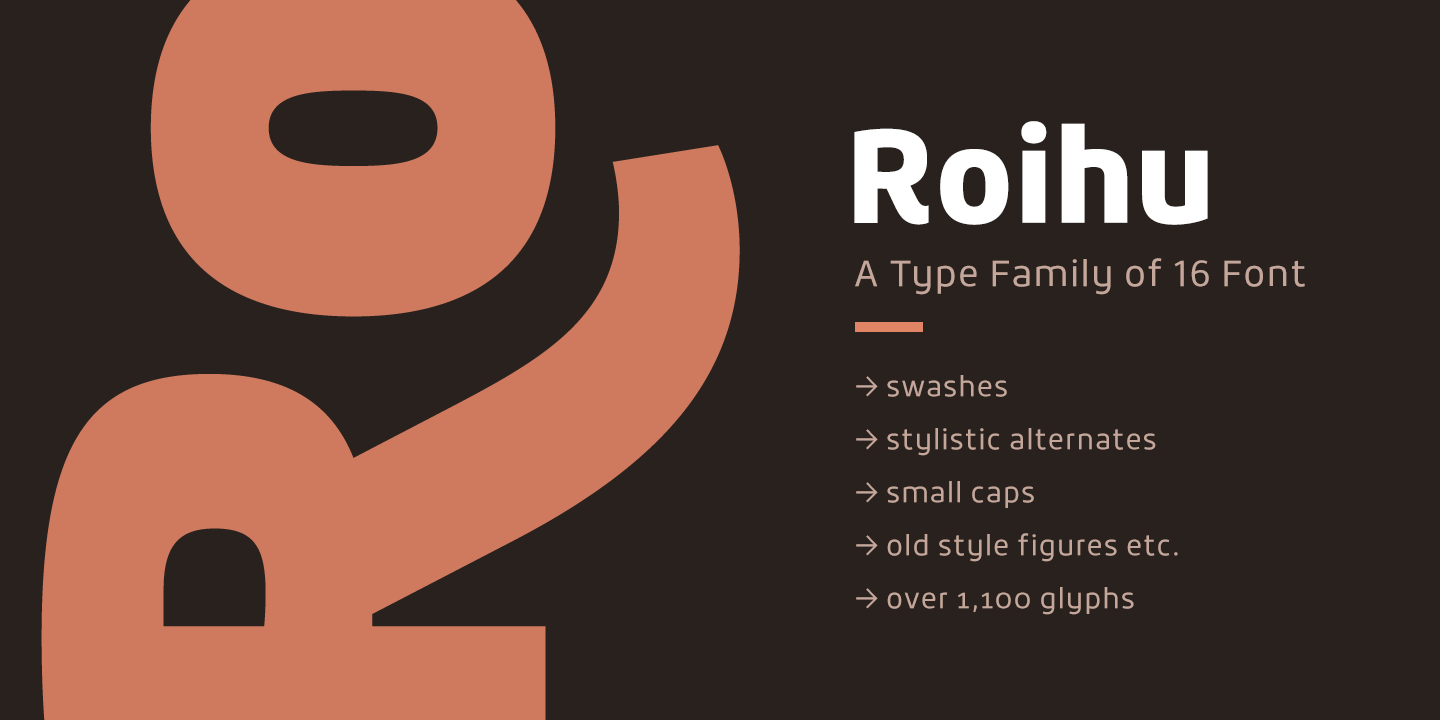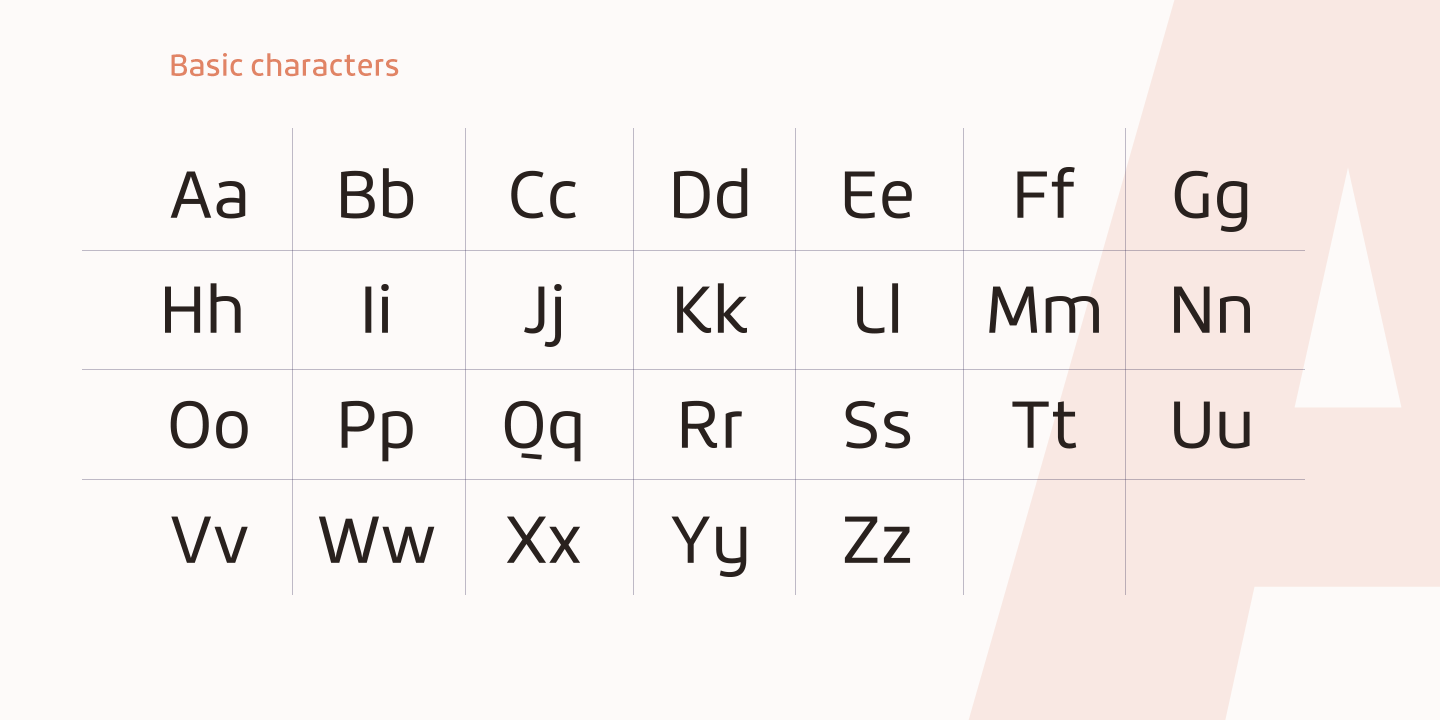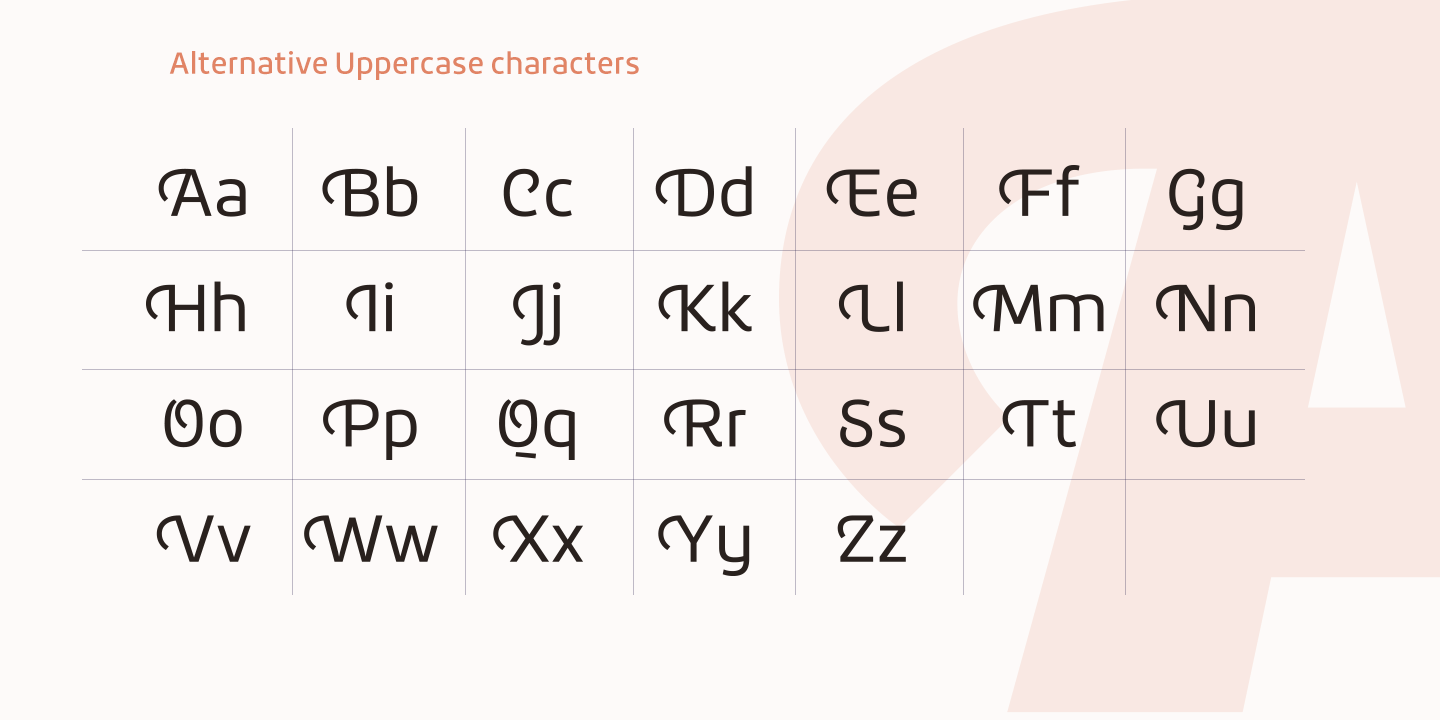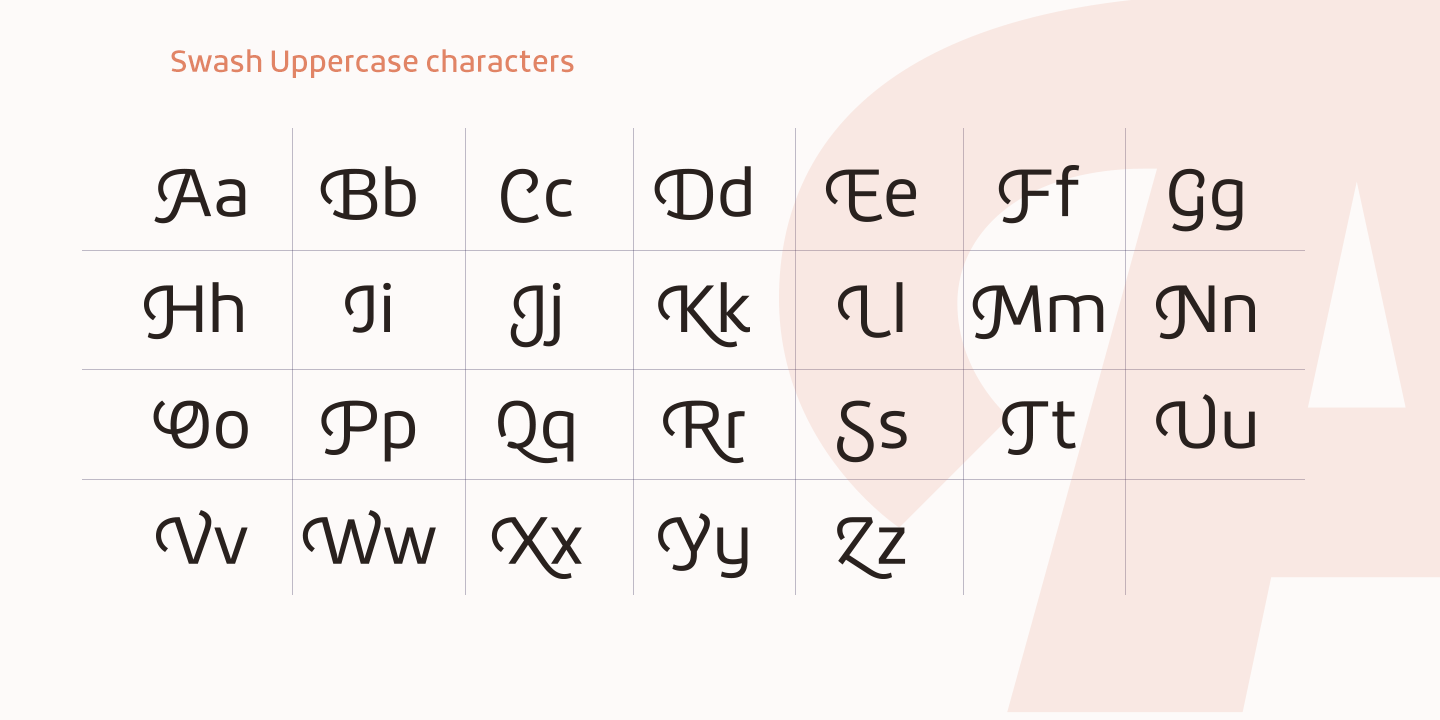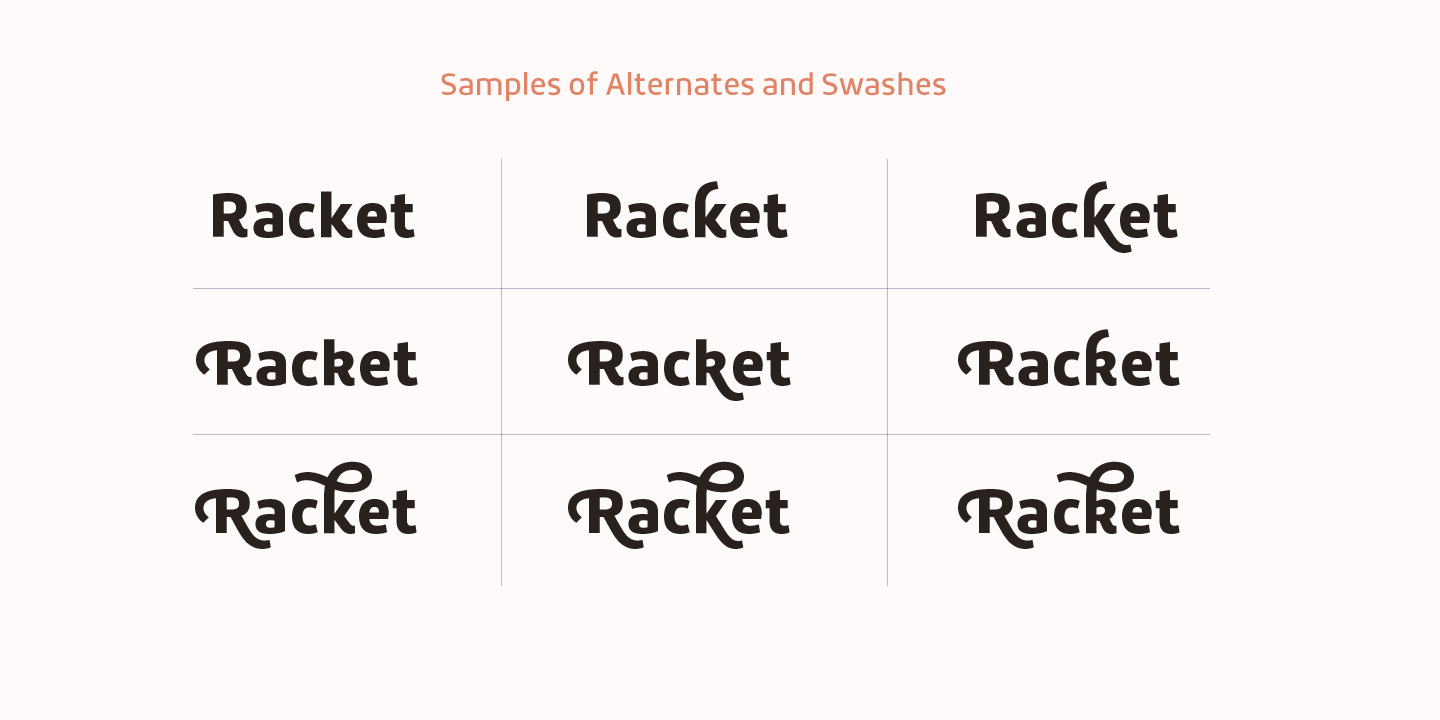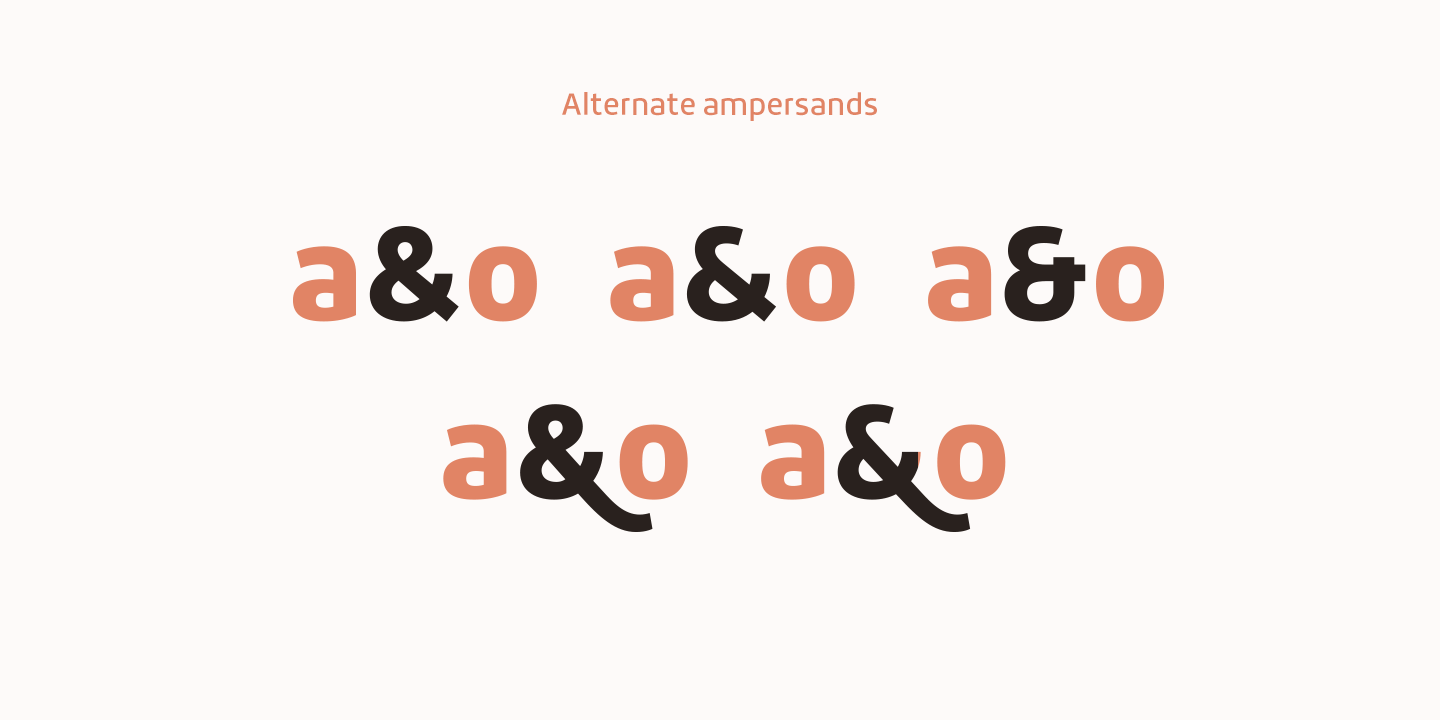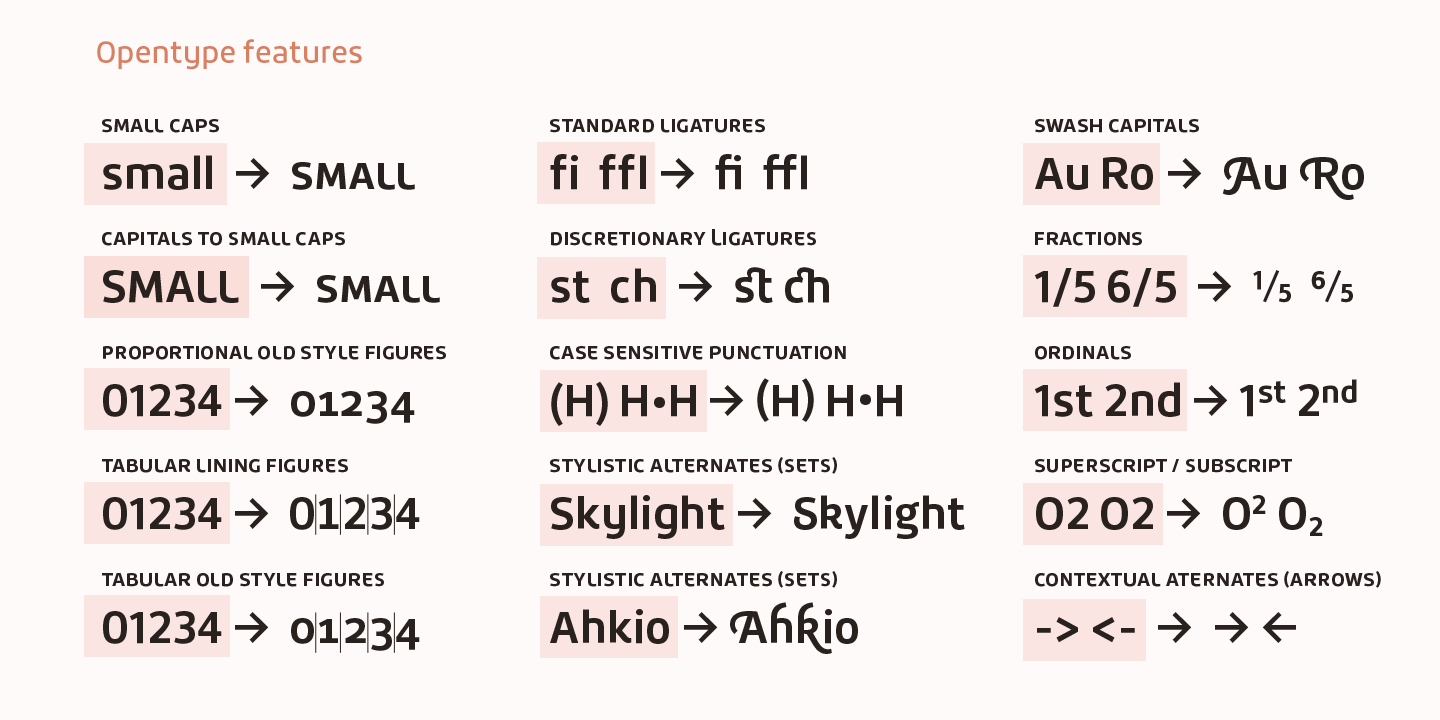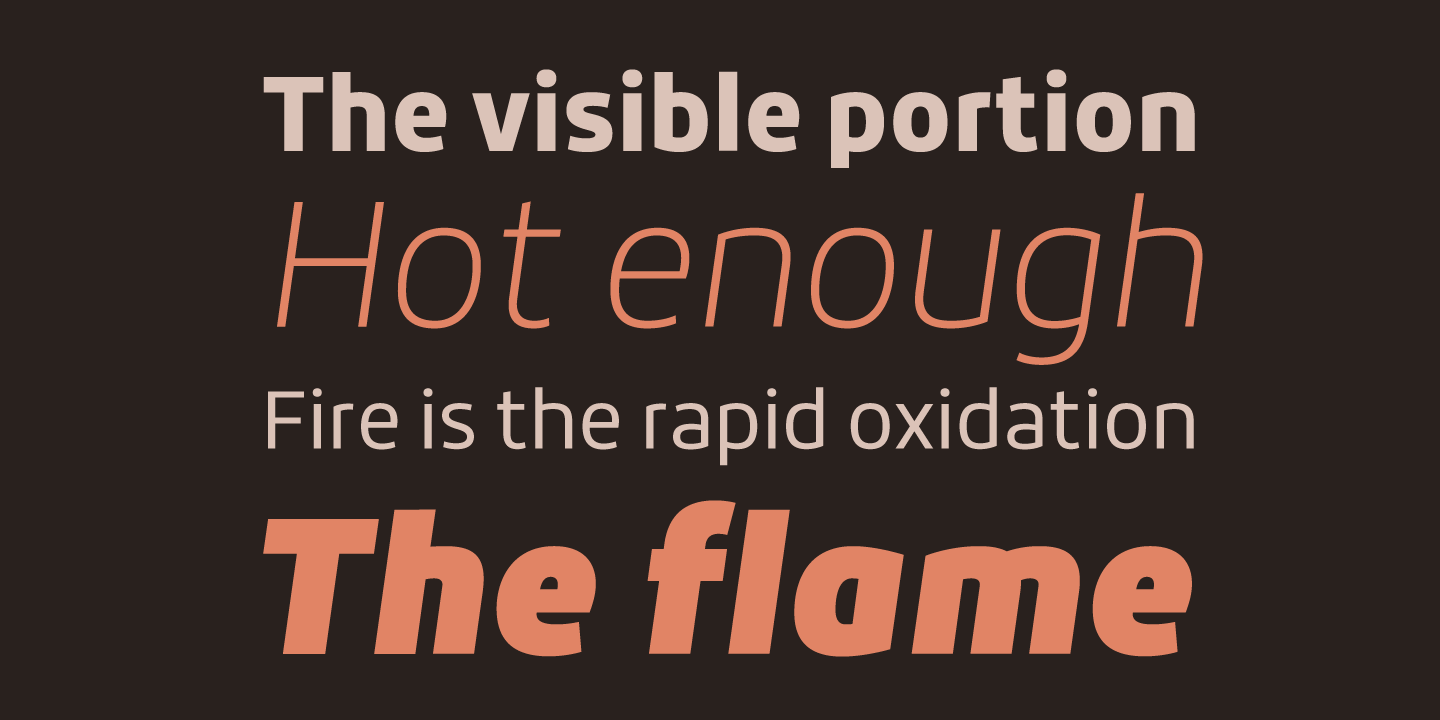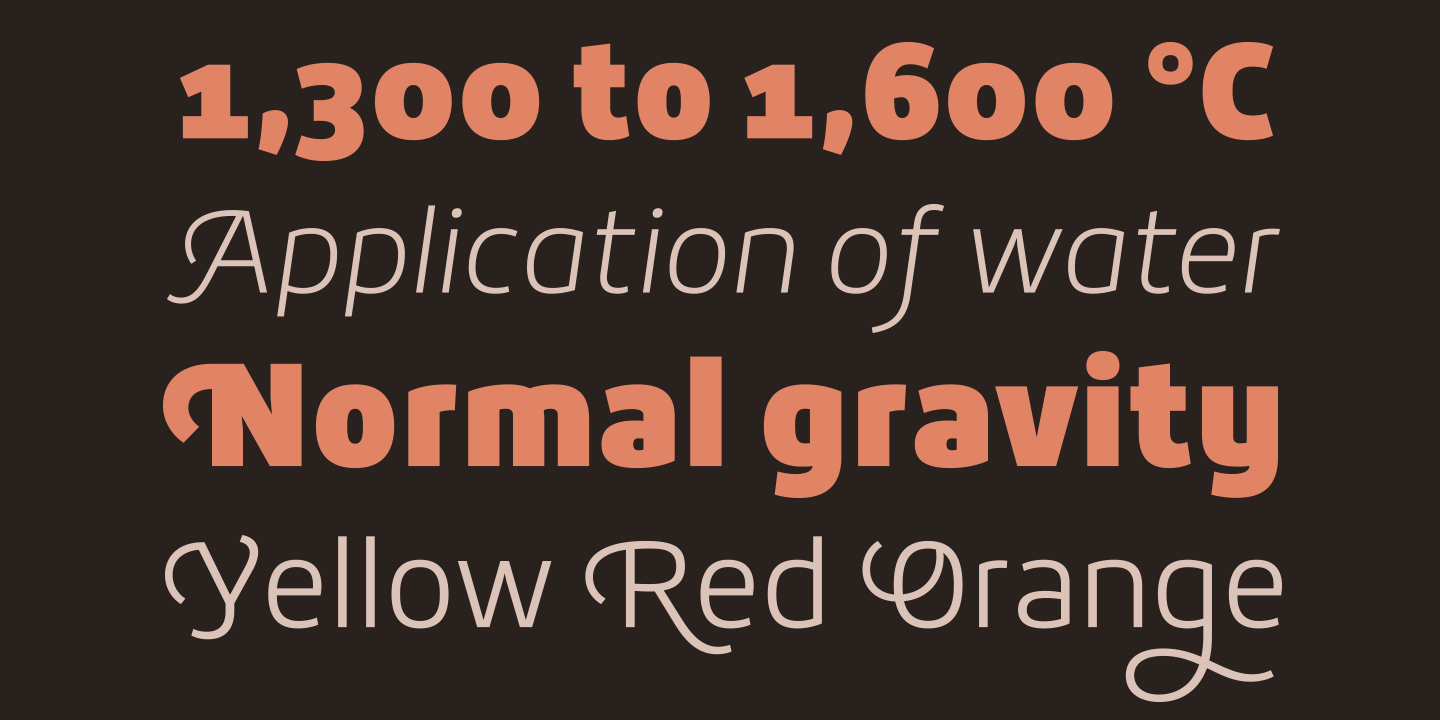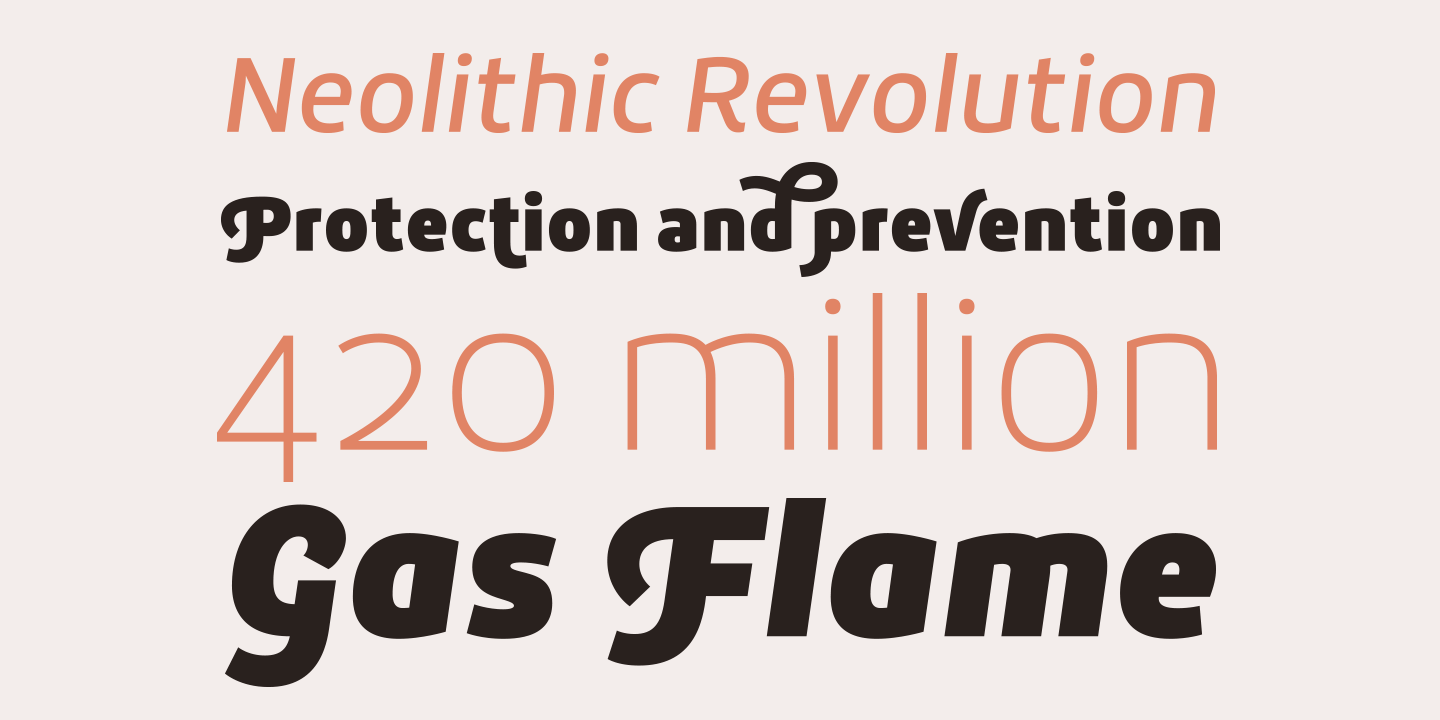
Roihu
Font Family by Mika Melvas
Buy NowRoihu is a sans serif type family of 16 fonts. Consisting of eight upright and eight italic weights. Each weight has over 1,100 glyphs. It includes some groovy stylistic alternates and swashes of which you can use to make your titles, packages, logos etc. to pop out.
Roihu has also small caps, old style and lining figures, ligatures to make sure your text and design is not going to be boring.
Opentype features:
- small caps
- stylistic alternates
- swashes
- proportional lining figures
- proportional old style figures
- tabular lining figures
- tabular old style figures
- standard ligatures
- discretionary ligatures
- case sensitive punctuation
- fractions
- ordinals
- superscript
- subscript
- arrows.